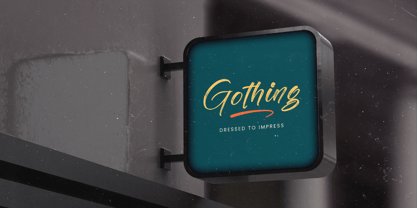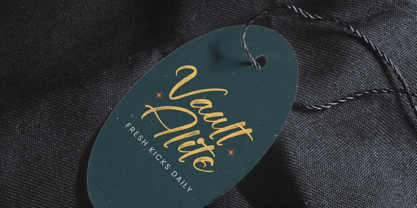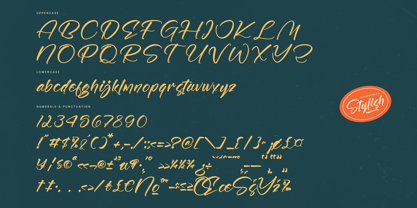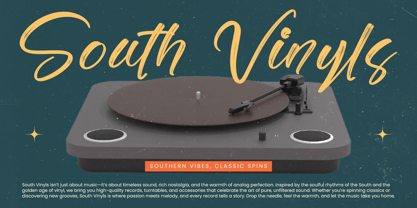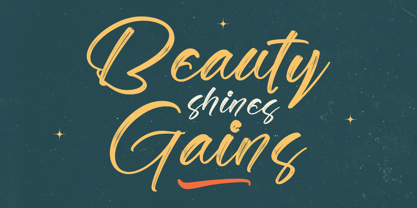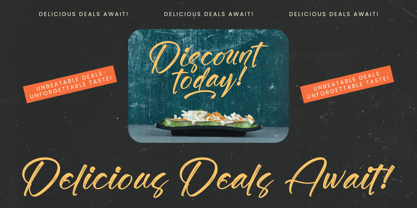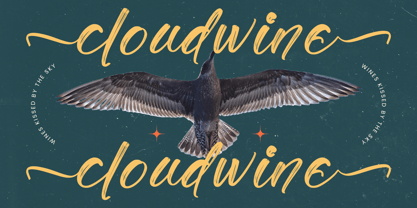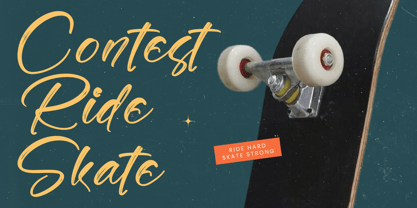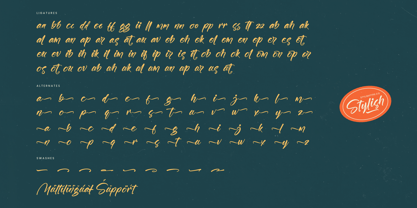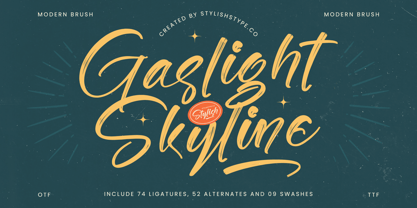
Gaslight Skyline
The Gaslight Skyline Font Family was designed by Heru Utama Putra and published by Stylishtype Studio. Gaslight Skyline contains 2 styles and family package options. More about this family
Gaslight Skyline - Modern Brush Font , from Stylishtype, Suitable for any projects such as: logos, branding projects, homeware designs, product packaging, mugs, quotes, posters, shopping bags, t-shirts, book covers, name card, invitation cards, greeting cards, label, photography, watermark, special events, and all your other luxury and beautiful projects that need a Luxury Script taste.